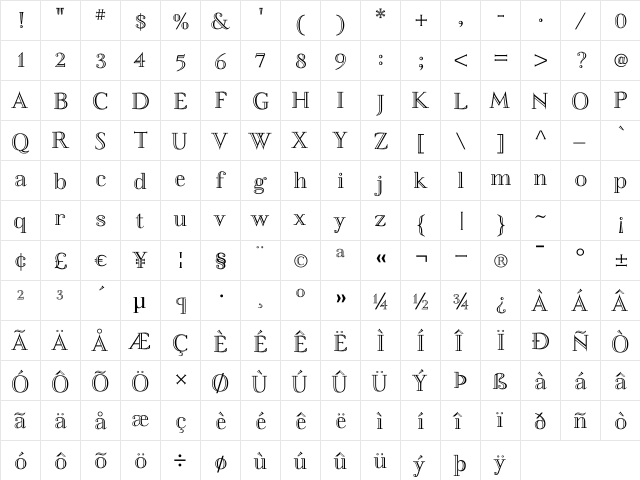
Felina SerifInline Regular
Design Context for Felina SerifInline Typeface
Felina SerifInline is built around its visual character rather than neutral utility — its distinctive forms are designed to make an impression at display sizes.
Font Pairing: Pair with a clean neutral sans-serif for body copy to let Felina SerifInline's character lead without overwhelming the composition.
Pro Tip: Use Felina SerifInline exclusively at display sizes — it was designed to be seen, not read at length. Let a neutral companion handle body copy.